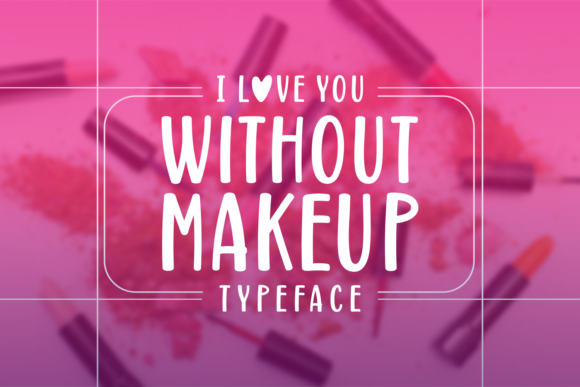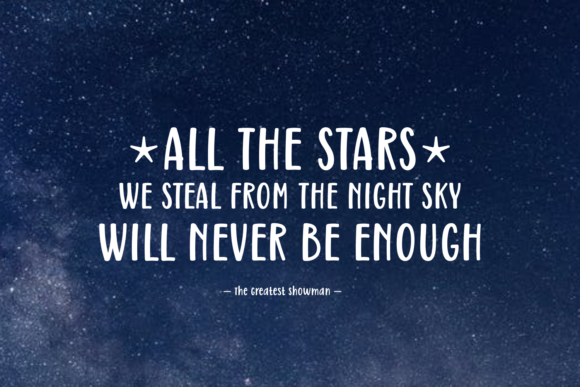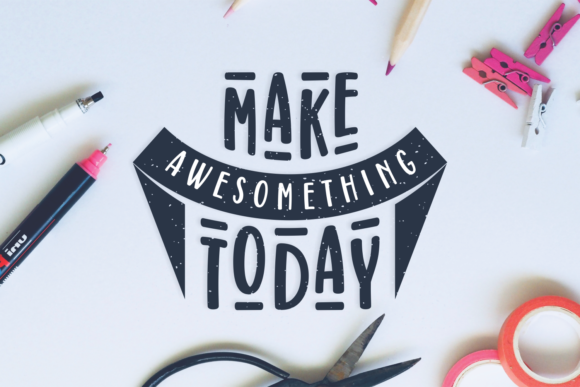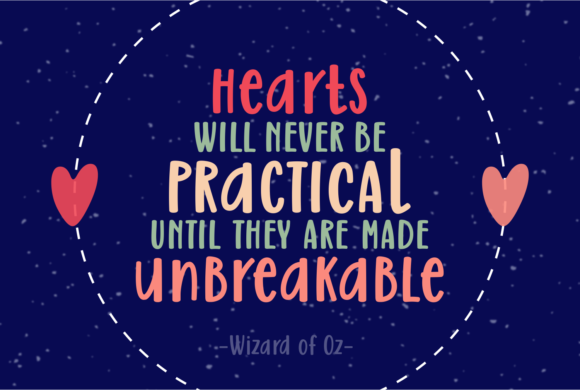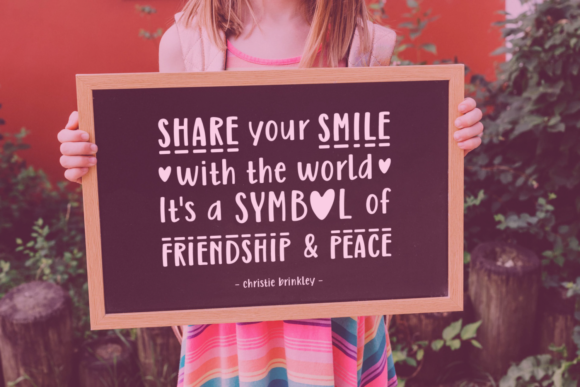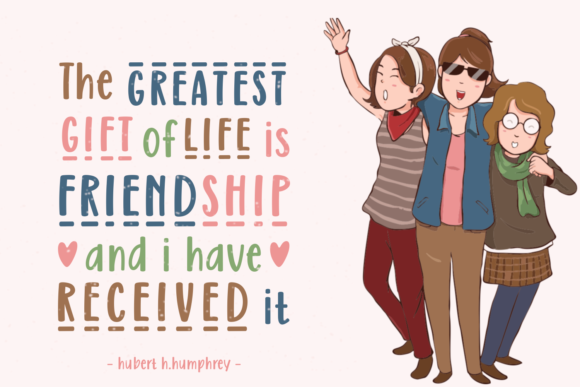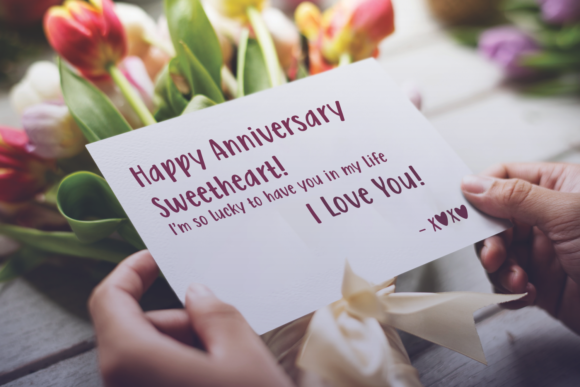
Without Makeup Font
About Without Makeup Font
The Without Makeup is a modern script font. It includes bold characters with a perfect readability which can be used to add a modern and playful touch to your designs.